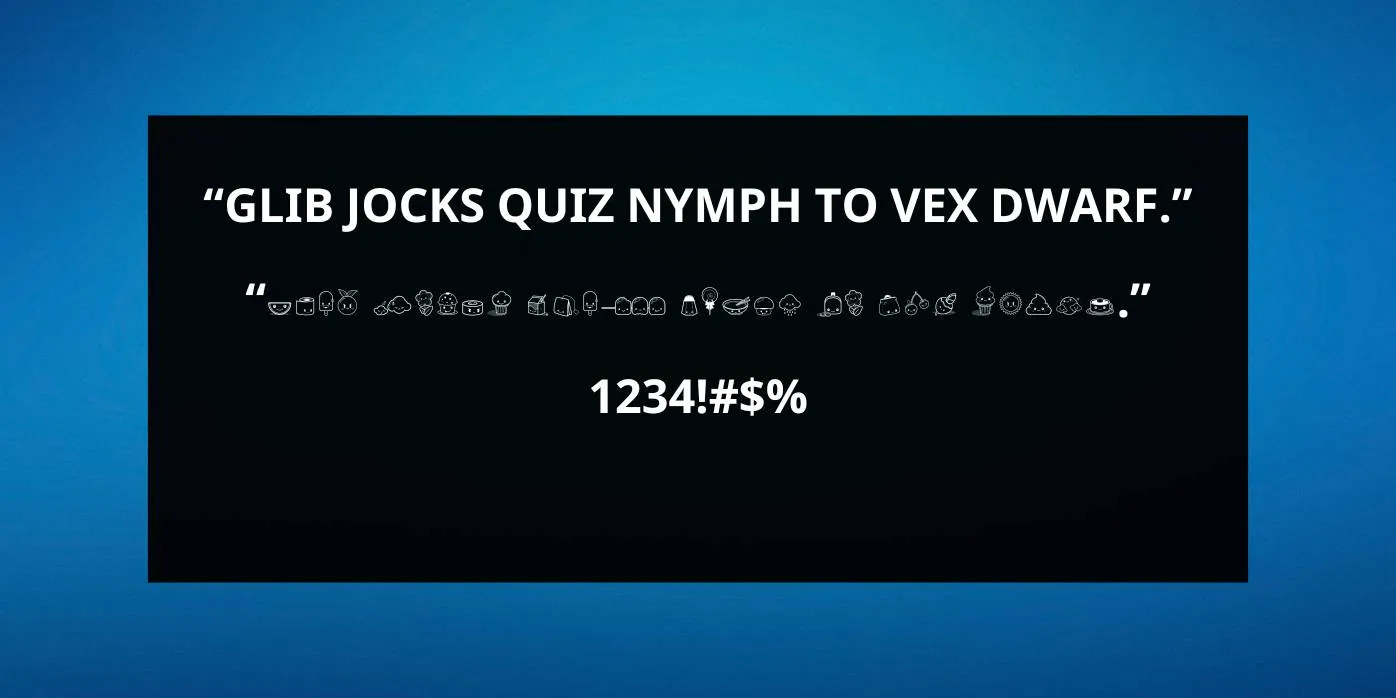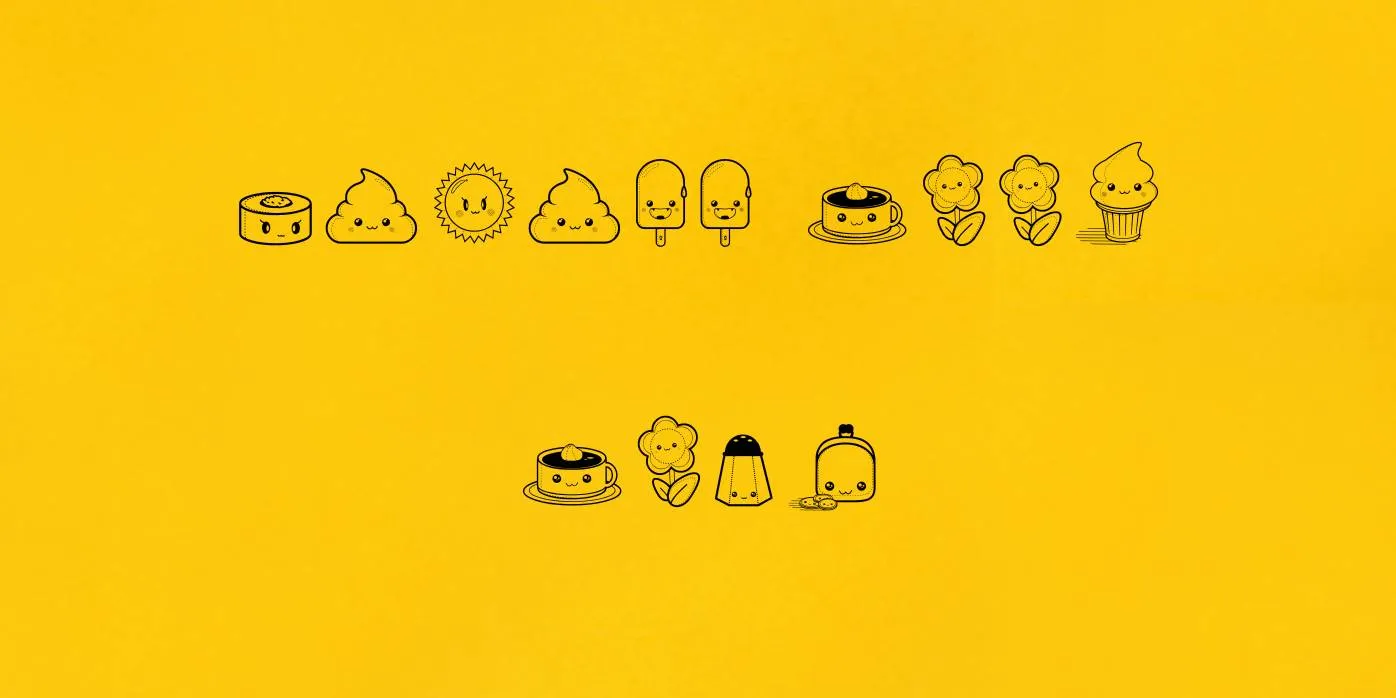
Kawaii Food Font
Kawaii Food Font is a dingbat type of font. Thomas Boucherie is the designer of this typeface. There are 31 different glyphs for this texture. You can get this typeface in OpenType Font and TrueType font formats.